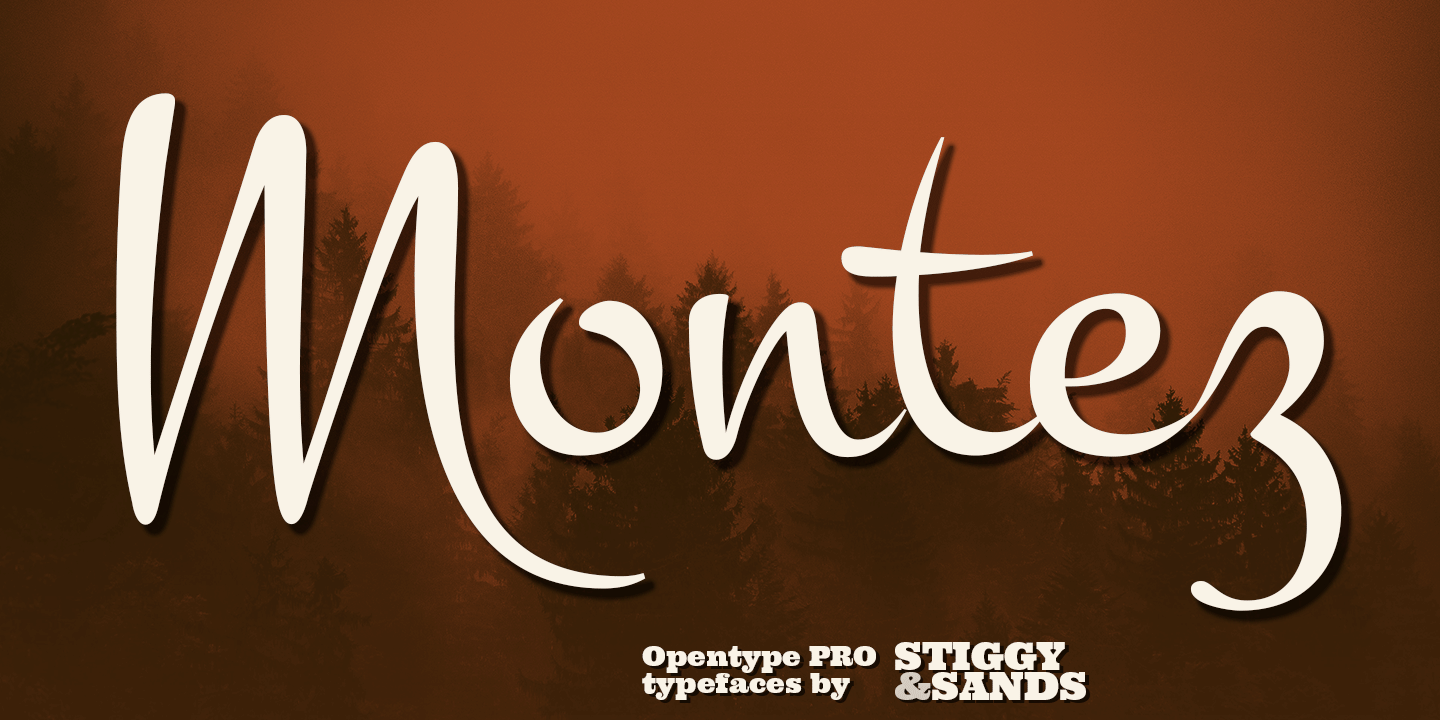
The Montez Pro Font is perfect for elegant script wedding invitations, luxury calligraphy branding, high-end fashion boutique logos, sophisticated restaurant menus, premium beauty salon signage, artisanal product packaging, upscale event planning materials, exclusive jewelry store graphics, and refined lifestyle magazine headers.
What makes the Montez Pro Font so exciting is its professional calligraphic sophistication that perfectly balances handwritten elegance with modern typographic precision. This exquisite typeface embodies the refined artistry and professional craftsmanship that defines premium script typography, creating an immediate impression of luxury and personal attention to detail. The font's professional character communicates the meticulous quality and sophisticated elegance that premium script-focused businesses need to attract discerning customers who appreciate authentic calligraphic artistry and the personal touch of handcrafted design excellence.
The Montez Pro Font family includes Regular weight with complete uppercase and lowercase alphabets, comprehensive numerical sets, essential punctuation marks, and calligraphic flourishes that maintain the professional script aesthetic throughout your luxury and elegance-focused design projects.
Luxury calligraphy businesses and premium design studios consistently select Montez Pro Font Free Download for projects that require authentic script appeal and professional calligraphic communication. This exceptional typeface excels in environments where establishing sophisticated elegance and personal craftsmanship is crucial for attracting clientele who value handwritten artistry and premium design services. The font's professional character helps communicate the quality and personal attention that luxury script enthusiasts expect from established calligraphy professionals and premium design service providers.
The distinctive qualities of Montez Pro Font reflect the refined traditions of professional calligraphy where artistic skill, personal expression, and technical precision create timeless elegance and memorable written communications. Each character demonstrates the flowing grace and controlled artistry that characterizes master calligraphers and professional script designers. The font's proportions and spacing create perfect harmony between handwritten authenticity and professional consistency that modern luxury businesses require for effective premium branding and elegant customer communication.
Contemporary luxury enterprises appreciate how Montez Pro Font communicates professional artistry and sophisticated elegance. Whether designing materials for luxury wedding planners, creating branding for high-end fashion designers, or developing marketing for premium beauty services, this font delivers the authentic character that distinguishes professional calligraphic work from amateur script attempts. The typeface works exceptionally well for businesses emphasizing personal service, artistic craftsmanship, and the sophisticated appeal of professional calligraphy and handwritten elegance.
The versatility of Montez Pro Font extends across multiple luxury applications and premium calligraphy initiatives. Fine stationery companies utilize its elegant character for sophisticated product lines and luxury correspondence materials. Upscale event venues choose it to communicate the refined atmosphere and personal attention of their premium celebration services. Luxury brand consultants rely on its professional appearance to create memorable branding materials that capture the essence of sophisticated elegance and personal craftsmanship.
Digital luxury platforms benefit from Montez Pro Font's optimized performance across various sophisticated applications and professional communication channels. The font maintains its calligraphic elegance whether displayed on luxury websites, mobile premium apps, or high-resolution professional presentations. This technical excellence ensures consistent brand presentation across all luxury communication platforms and professional calligraphy engagement scenarios.
The emotional impact of Montez Pro Font resonates with audiences who appreciate the artistry of professional calligraphy and seek sophisticated elegance in their luxury experiences. The typeface serves as a visual promise of personal attention and artistic excellence that helps luxury businesses build lasting relationships with customers who value handcrafted quality and professional design artistry. This connection to calligraphic sophistication and personal craftsmanship makes it invaluable for establishing prestigious luxury brand identities.
Luxury marketing specialists and professional calligraphy designers recognize Montez Pro Font as an essential tool for authentic script branding. The font captures the essence of professional calligraphy while making sophisticated elegance accessible to contemporary luxury businesses who want to communicate their commitment to artistic excellence, personal service, and the timeless beauty of professional handwritten design in today's competitive luxury marketplace.